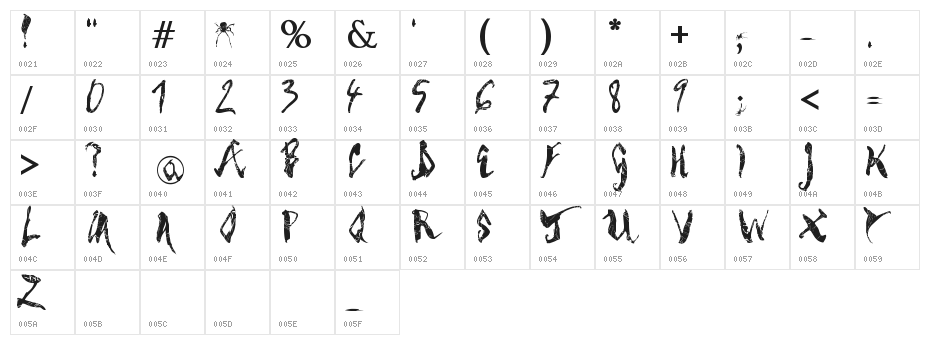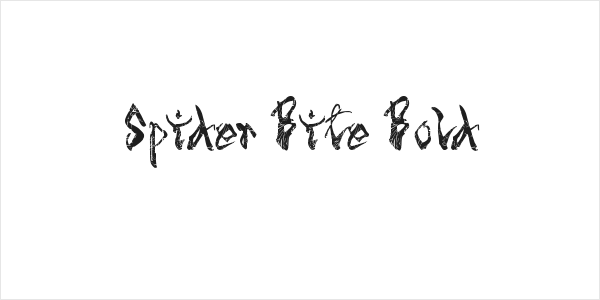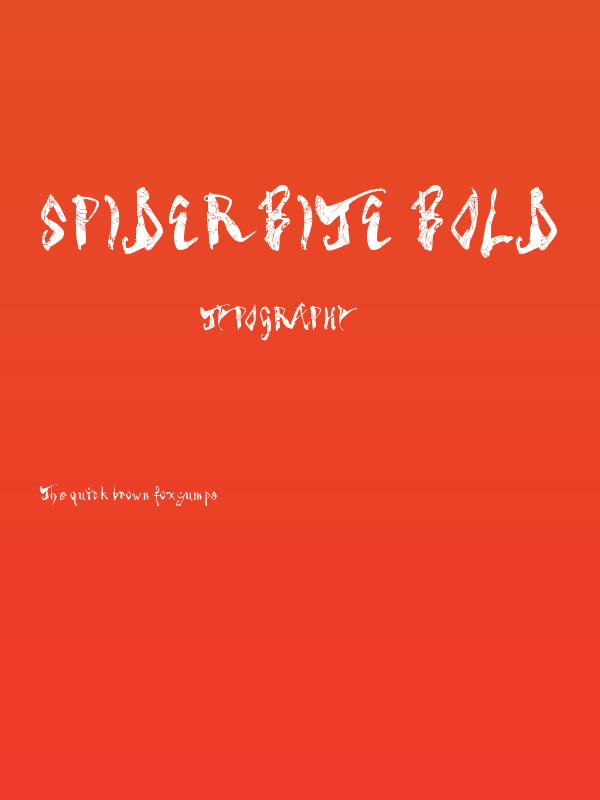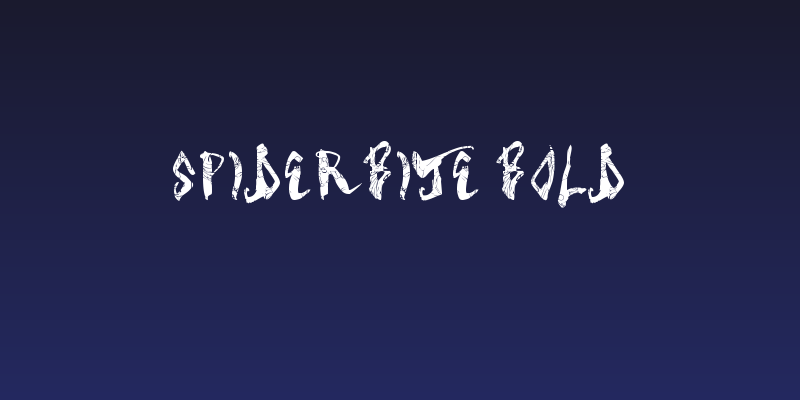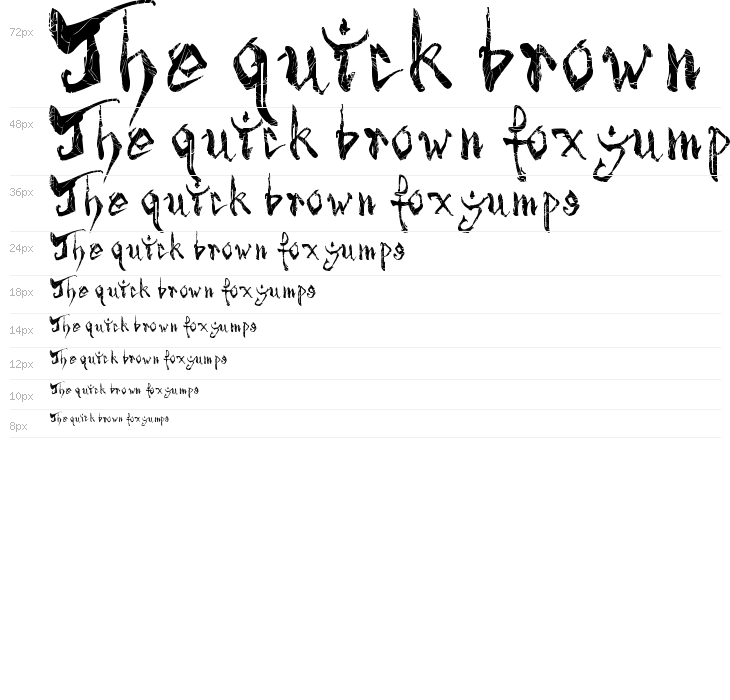
Spider Bite Bold Font
Spider Bite Bold Description
This font features a bold and edgy design with a distressed, grunge-like appearance. The characters are irregular and jagged, giving off a chaotic and energetic vibe. The uppercase and lowercase letters maintain a consistent style, with sharp angles and uneven strokes that suggest a hand-drawn quality. Numbers and special characters follow the same aesthetic, adding to the font's unique and rebellious character. The overall look is reminiscent of graffiti or street art, making it stand out with its raw and untamed energy.
Proposed ProjectsIdeal for projects that require a bold statement, such as posters, album covers, or edgy branding materials.